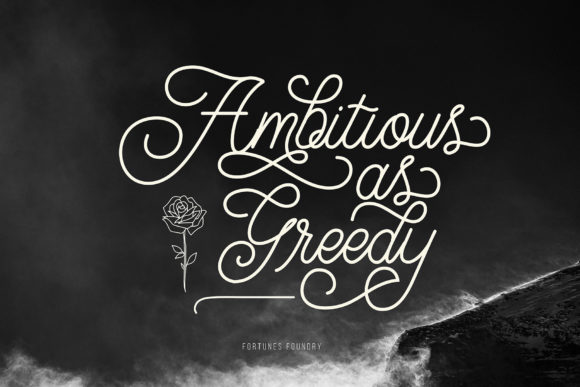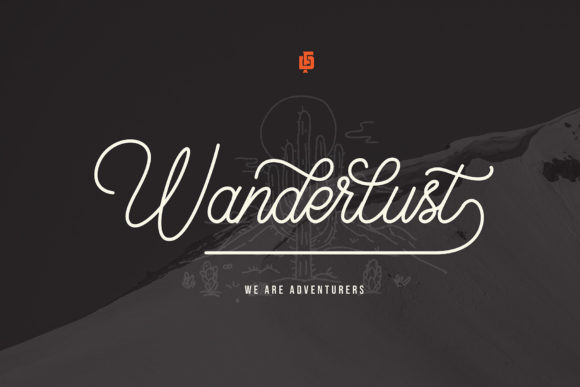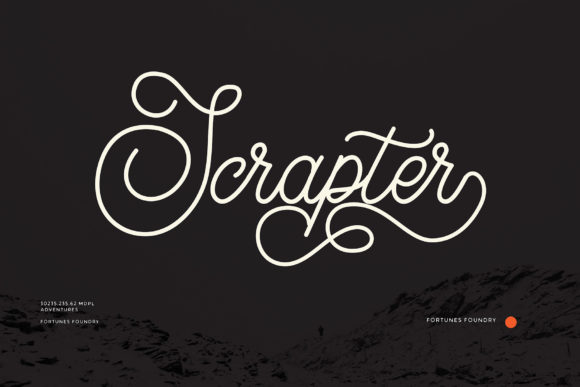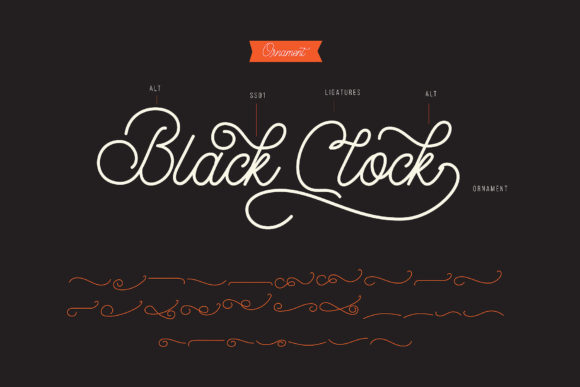
About Rocktrail Script Font
“Rocktrail Script” is a vintage-inspired and delicately crafted script font that brings a touch of nostalgia and timeless elegance to a wide range of design projects. With its intricate details and classic flair, this font captures the essence of vintage charm.
When used in branding, “Rocktrail Script” adds a sense of authenticity and character to logos. Its delicate strokes and ornate design create a distinctive visual identity that stands out and leaves a lasting impression.
For t-shirt printing, “Rocktrail Script” lends a unique and stylish vibe to apparel designs. Whether it’s retro-inspired graphics or classic typography, the font’s vintage aesthetic adds a touch of sophistication to the garment.
Creative products come to life with the addition of “Rocktrail Script.” Whether it’s on posters, packaging, or promotional materials, the font’s elegant curves and intricate details enhance the overall visual appeal, making your products more eye-catching and memorable.
Invitations take on a refined and classic look with the use of “Rocktrail Script.” Whether it’s a wedding, party, or special event, the font’s vintage style sets the tone for a stylish and sophisticated gathering.
The versatility of “Rocktrail Script” extends beyond text. It can be used to create decorative elements, frames, and borders that add a touch of vintage charm to various design elements.
In digital and print media, “Rocktrail Script” adds a sense of elegance and refinement to social media posts, advertisements, and editorial layouts. Its timeless appeal resonates with audiences who appreciate classic design aesthetics.
Overall, “Rocktrail Script” is a carefully designed font that brings a vintage-inspired and delicate touch to a variety of contexts. Whether you’re working on branding, t-shirt designs, creative products, invitations, or other design projects, “Rocktrail Script” adds a sense of classic elegance and sophistication that captures the essence of the past while remaining relevant in the present.